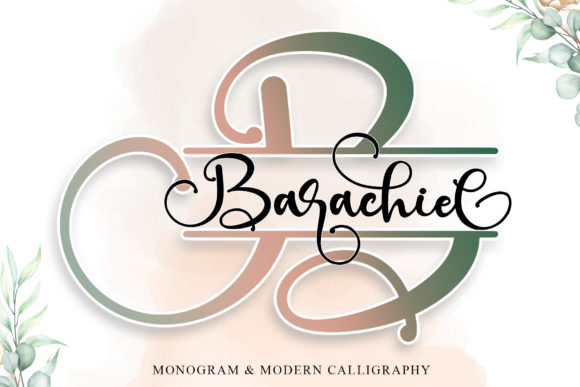
Behold Barachiel, a script font that dances across the screen with an air of elegance and fluidity. Its PUA encoding invites you on a journey of creative possibilities, allowing effortless access to a world of glyphs and swashes, enhancing your designs with a touch of playful intricacy.
Barachiel's varying baseline mimics the natural rhythm of handwriting, adding a touch of authenticity to your digital creations. Smooth lines intertwine with gorgeous glyphs and stunning alternates, captivating the eyes and igniting the imagination.
The beauty of Barachiel lies in its ability to seamlessly blend classic calligraphy with a modern, fresh aesthetic. It's a font that respects its roots while embracing the spirit of innovation, striking a perfect balance between timeless elegance and contemporary charm.
With Barachiel, your projects will soar to new heights. Infuse your website headings with a touch of sophistication, elevate your social media posts with a dash of visual delight, or let your branding shine with a logo that exudes elegance and grace.
Barachiel is more than just a font; it's a creative companion that fuels your imagination and empowers you to craft designs that leave a lasting impression. Dive into the world of Barachiel and let your creativity flourish.